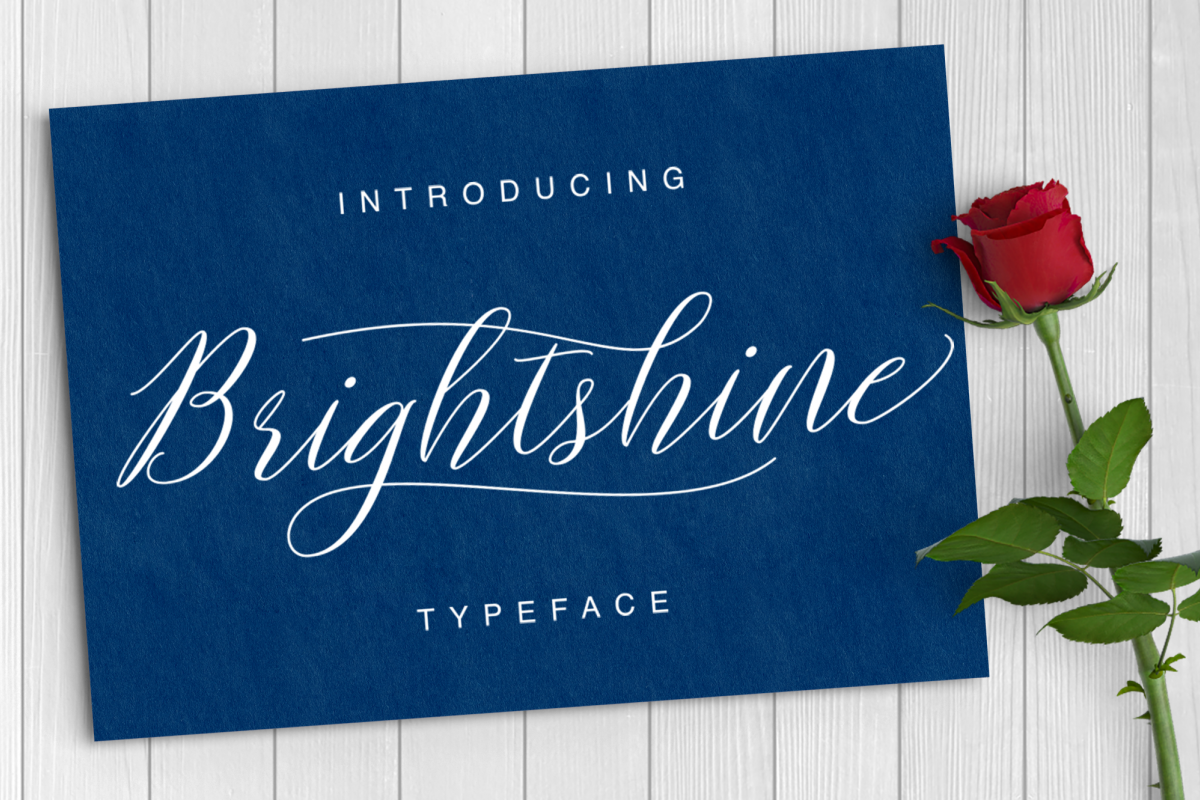
Brightshine Typeface
Brightshine Script Typeface
Introducing Brightshine Typeface
Brightshine Typeface is a new Modern Calligraphy Typeface Fonts collection from Ianmikraz studio, combines from copperplate to contemporary typeface, classic, beauty and elegant touch.
Brightshine Typeface features **313 glyphs with alternate character contain** with opentype features and has given **PUA unicode** (specially coded fonts), with tons of alternate characters. . Stylistic Alternates, Standart Ligature and more. You can access all those alternate characters by using OpenType savvy programs such as Adobe Illustrator, Adobe InDesign and CorelDraw X6-X7.
Brightshine Typeface is suitable for Apparel Brand, any greeting cards, Painting design style, or any design that needs natural and personal touch. Mix and match the alternate characters to add an attractive message to your design.
Features of Brightshine Typeface;
- Standart ligatures;
- Stylistic sets Alternates (7 style).